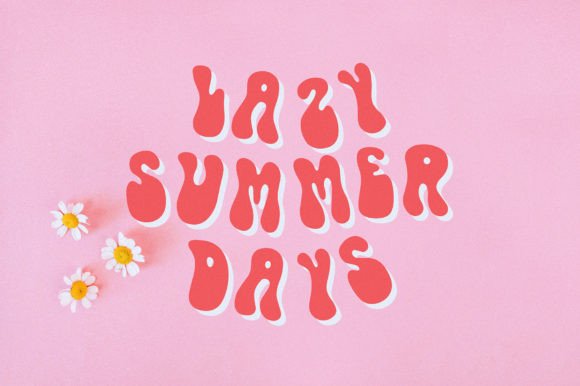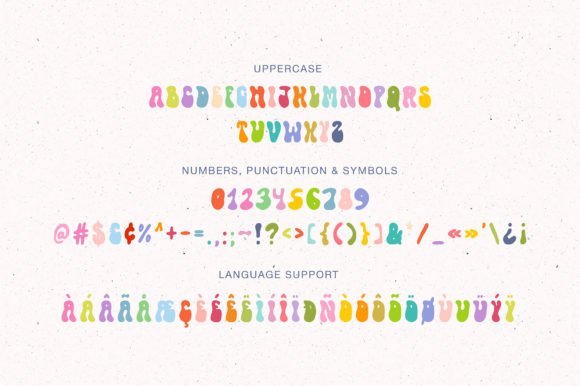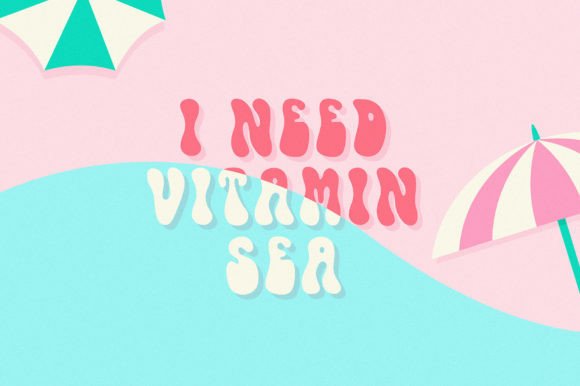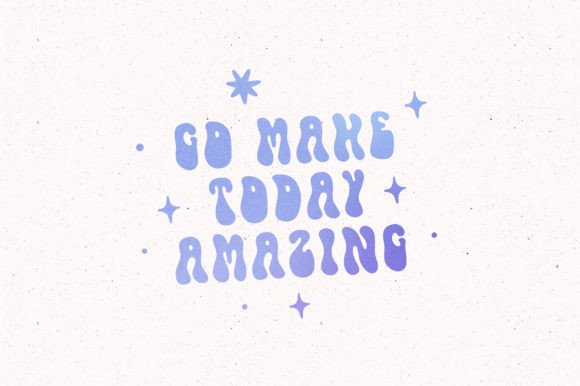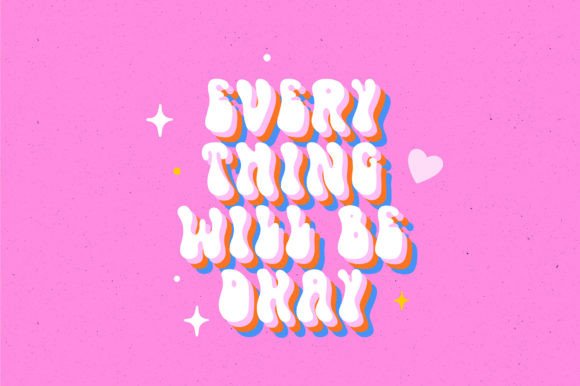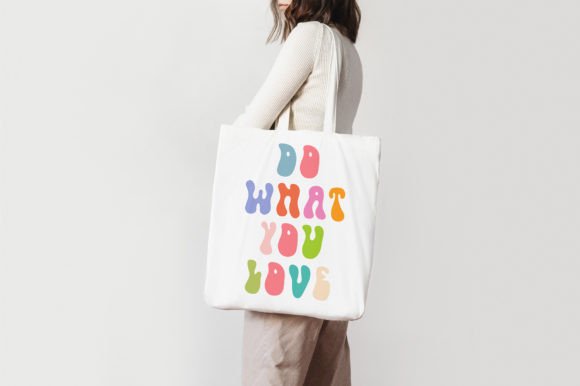
The Power of Playful Typography: A Deep Dive into Bright Colors Font
I’ll never forget the time I was working on a children’s activity book, struggling to find the perfect font that would bring the playful illustrations to life. The project required a font that was not only fun but also easy to read, and I stumbled upon Bright Colors Font. It was love at first sight! ✨ The chunky letters and vibrant colors instantly added a spark to my design, making it perfect for kids and creatives alike.
An Honest Review of Bright Colors Font
- ✨ Playful and Authentic: Bright Colors Font embodies the perfect blend of playfulness and authenticity, making it ideal for children’s activities, school projects, and even creative hobbies.
- ✅ Ease of Use: The font is incredibly easy to use, even for those who are new to design. It’s perfect for beginners and experienced designers alike.
- 🎨 Customization Options: Bright Colors Font comes with a range of OpenType features, glyphs, and stylistic alternates, allowing you to experiment with different styles and effects.
While Bright Colors Font is an amazing addition to any design, there are a few things to keep in mind: 🤔
- ⚠️ Limited Use Cases: Due to its playful nature, Bright Colors Font might not be the best choice for formal or professional projects.
- ⚠️ Legibility at Small Sizes: As with many display fonts, Bright Colors Font may lose legibility when used at very small sizes.
A Practical Guide to Using Bright Colors Font
The Story Behind Bright Colors Font
Bright Colors Font was designed with the intention of bringing playfulness and creativity to the world of typography. The designer, inspired by the vibrant colors and playful energy of children’s art, crafted a font that would embody the spirit of imagination and fun. 🎨
Q: What is Bright Colors Font best used for?
A: Bright Colors Font is perfect for children’s activities, school projects, creative hobbies, and any design that requires a playful, authentic feel.